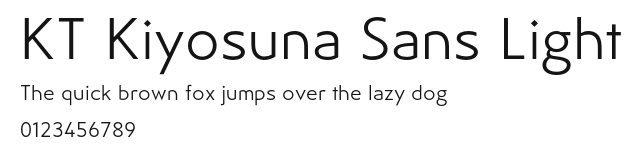
KT Kiyosuna Sans Light Preview
• Font Name: KT Kiyosuna Sans Light
• Full Font Name: KT Kiyosuna Sans Light
• Designer: [Zen Kaku Gothic] Yoshimichi Ohira
• Description: このフォントはYoshimichi Ohira氏によるZen Kaku Gothic (https://github.com/googlefonts/zen-kakugothic)の派生書体です。このフォントの漢字(CJK統合漢字)データはZen Kaku Gothicからお借りしたものです。この場を借りて深くお礼申し上げます。
About KT Kiyosuna Sans Light.otf
KT Kiyosuna Sans Light.otf is a modern, elegant sans-serif font designed for ultimate readability and visual harmony. Perfect for branding, headlines, web design, and print materials.